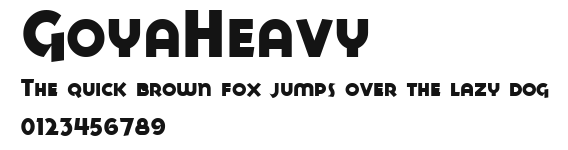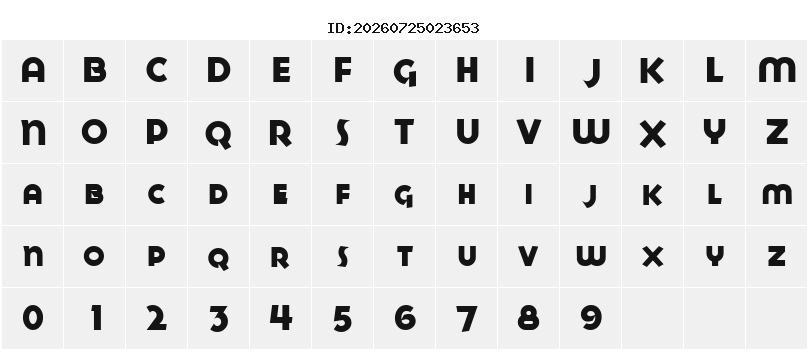
About GoyaHeavy.ttf
GoyaHeavy.ttf is a modern, elegant sans-serif font designed for ultimate readability and visual harmony. Perfect for branding, headlines, web design, and print materials.